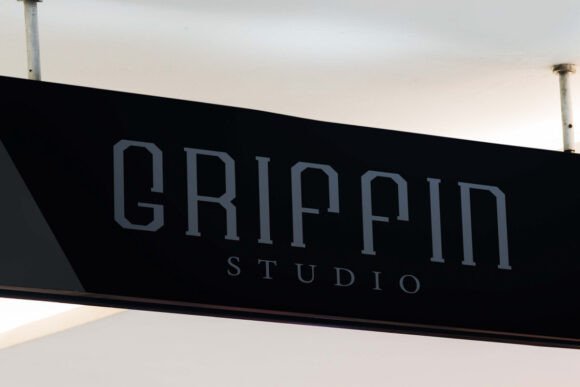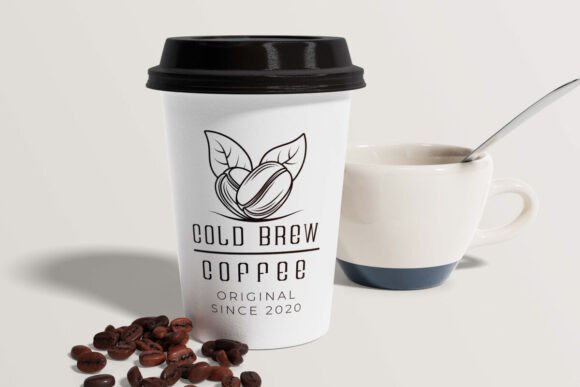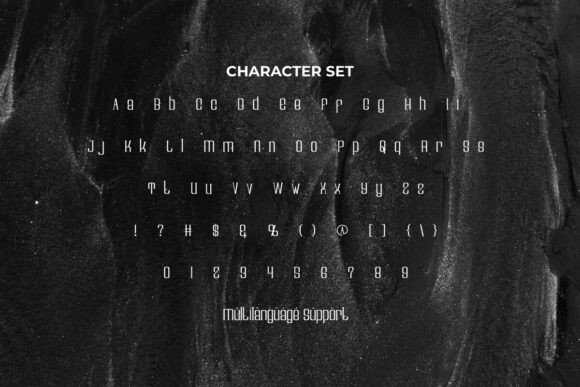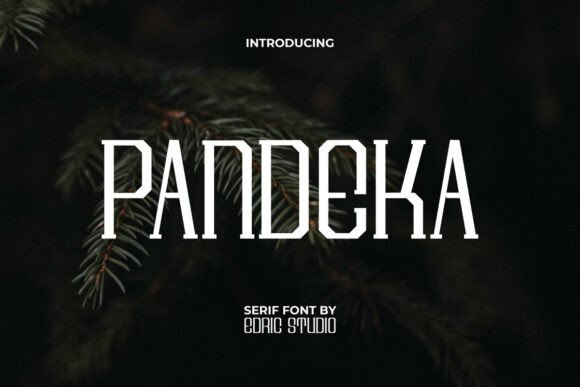
Introduction to Pandeka Font
Pandeka Font is a retro serif display font with a unique look.
This font bring the idea of being like an β€˜old school’ typeface which has an appeal to the sporty square shape of the letter, which makes it cool on all industries such as, accessories, architect, cafΓ©, fashion designer, fitness center, furniture, herbal products, interior design, movie, photography, printing, publishing, sportswear, etc .